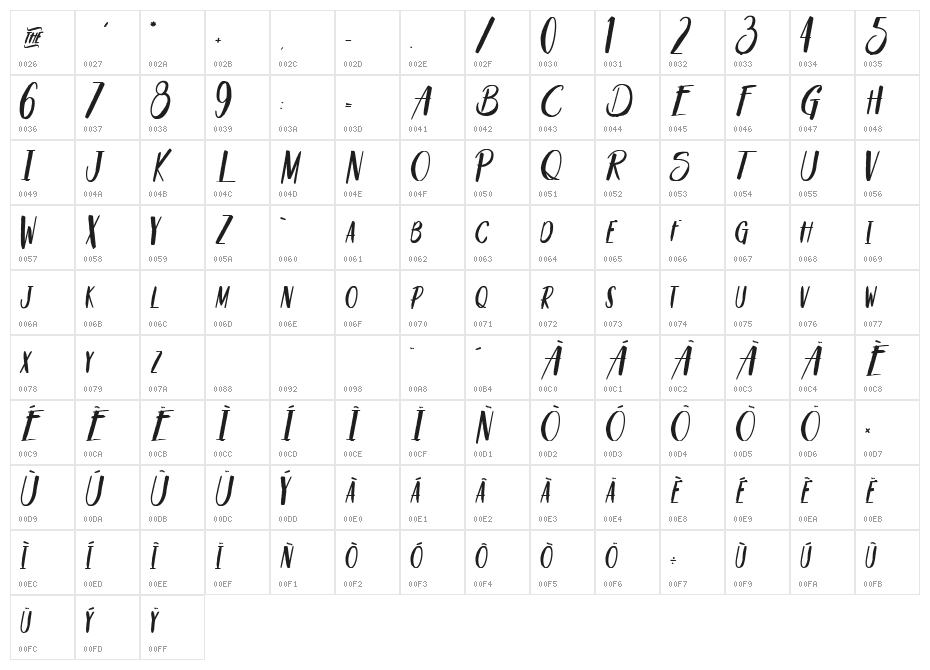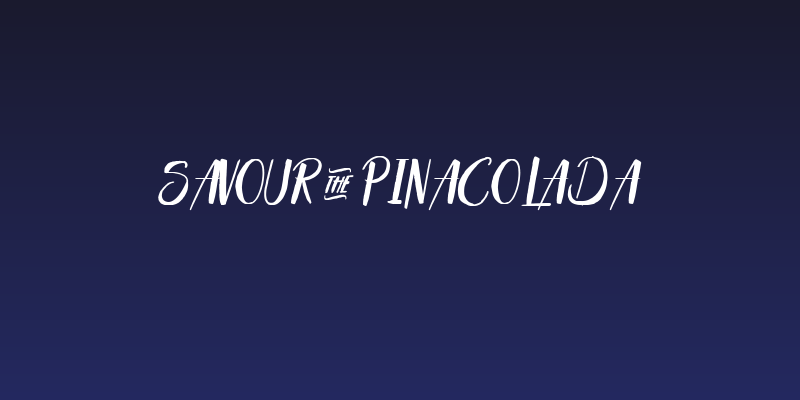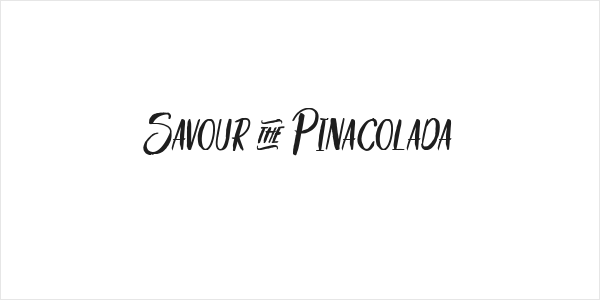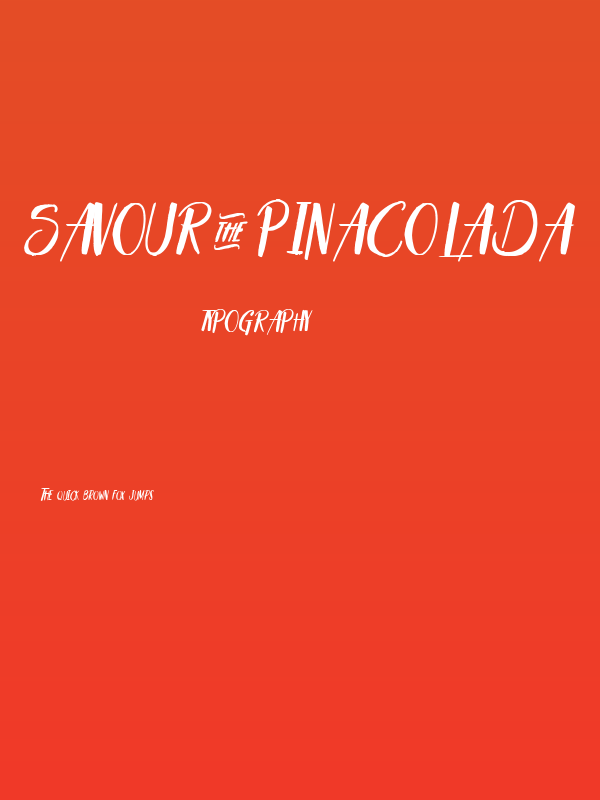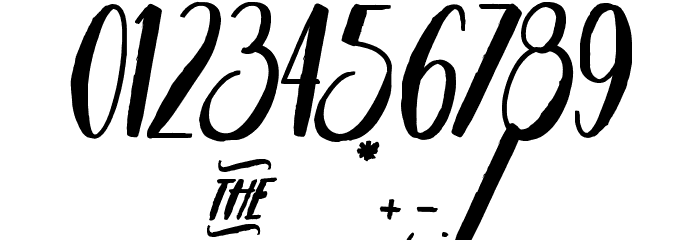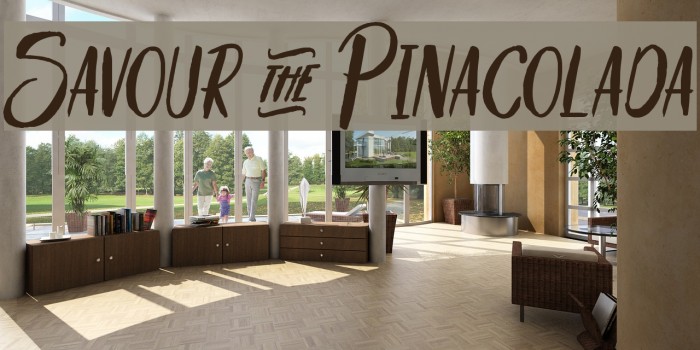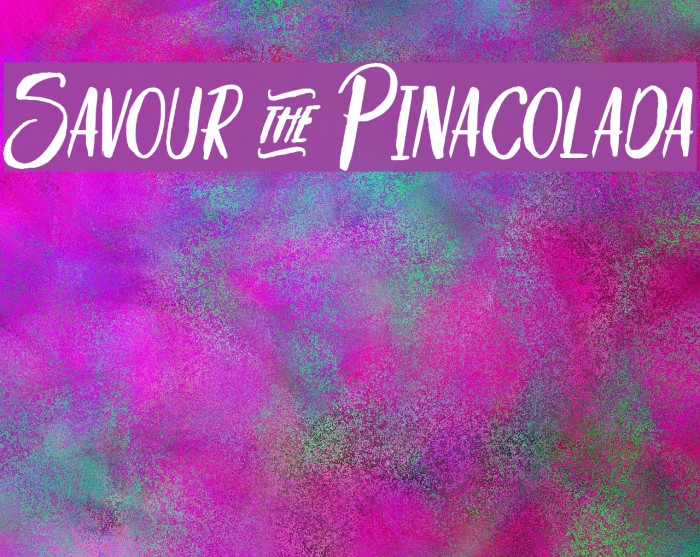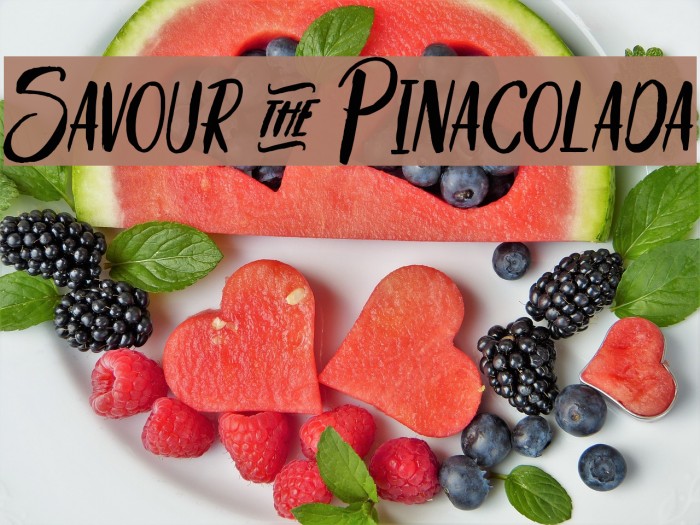
Savour&Pinacolada Font
Savour&Pinacolada Description
This font exudes a lively and energetic vibe, characterized by its bold and expressive strokes. The letters are crafted with a dynamic brush style, giving it a handwritten appearance that is both casual and artistic. The uppercase and lowercase letters maintain a consistent flow, with slightly exaggerated curves and angles that add to its playful nature. The numerals are equally expressive, complementing the overall style with their fluid forms. Special characters are included, maintaining the same energetic brush style. This font is perfect for projects that require a touch of creativity and flair.